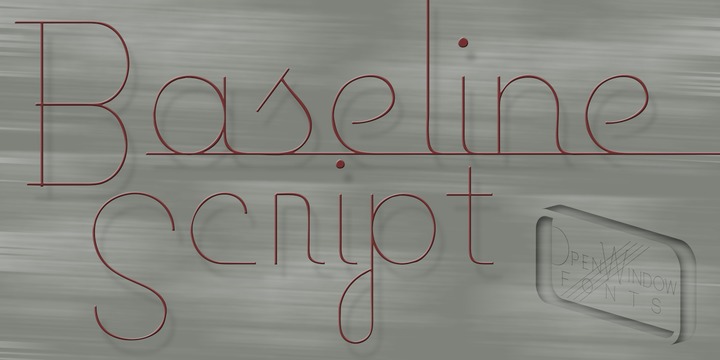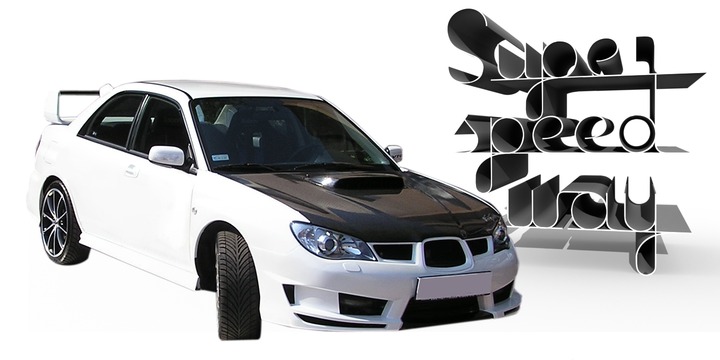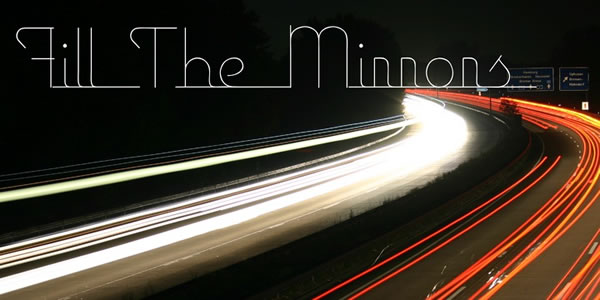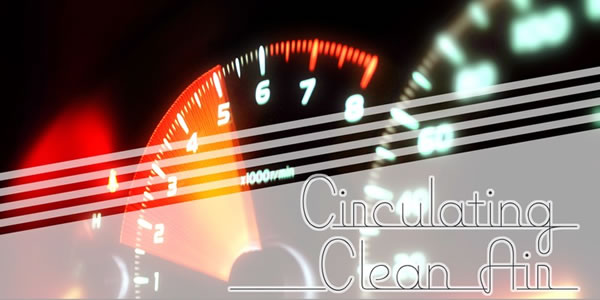
Baseline Script Font
About Baseline Script Font
Baseline Script is a super sleek hand drawn mono line font. Its also very thin which gives it a light aerodynamic quality, perfect for slipstreaming. Its default underlined style is perfect for headings and its complimentary unlined style is a perfect for larger bodies of text.